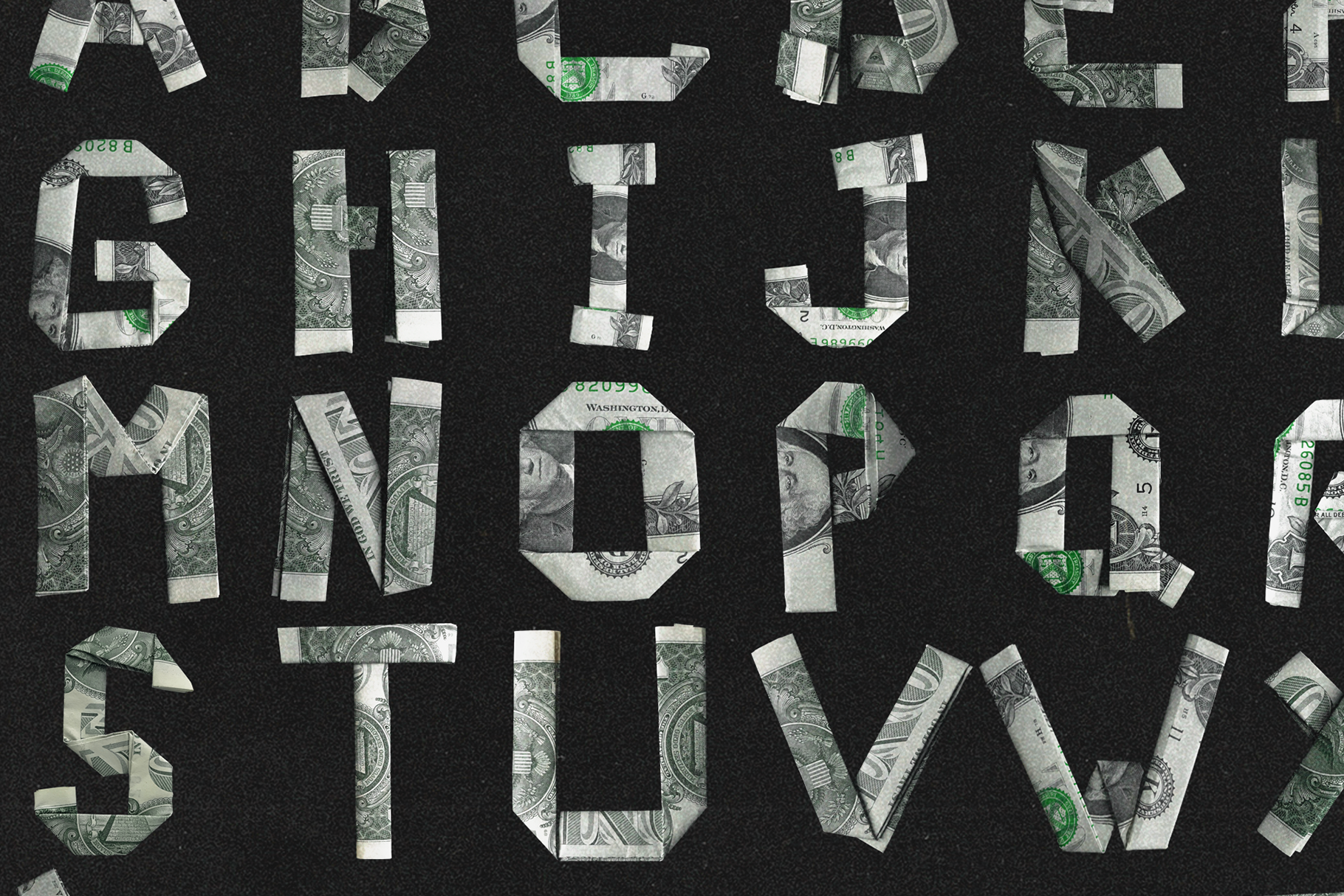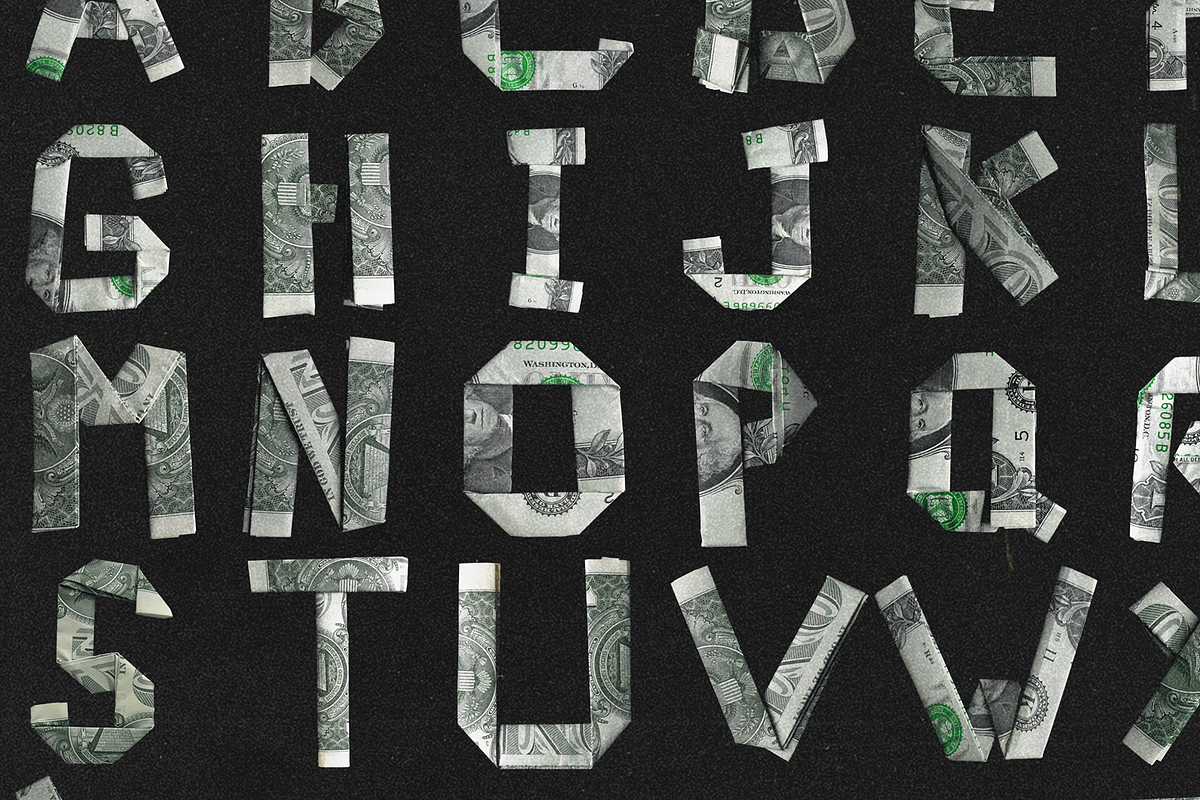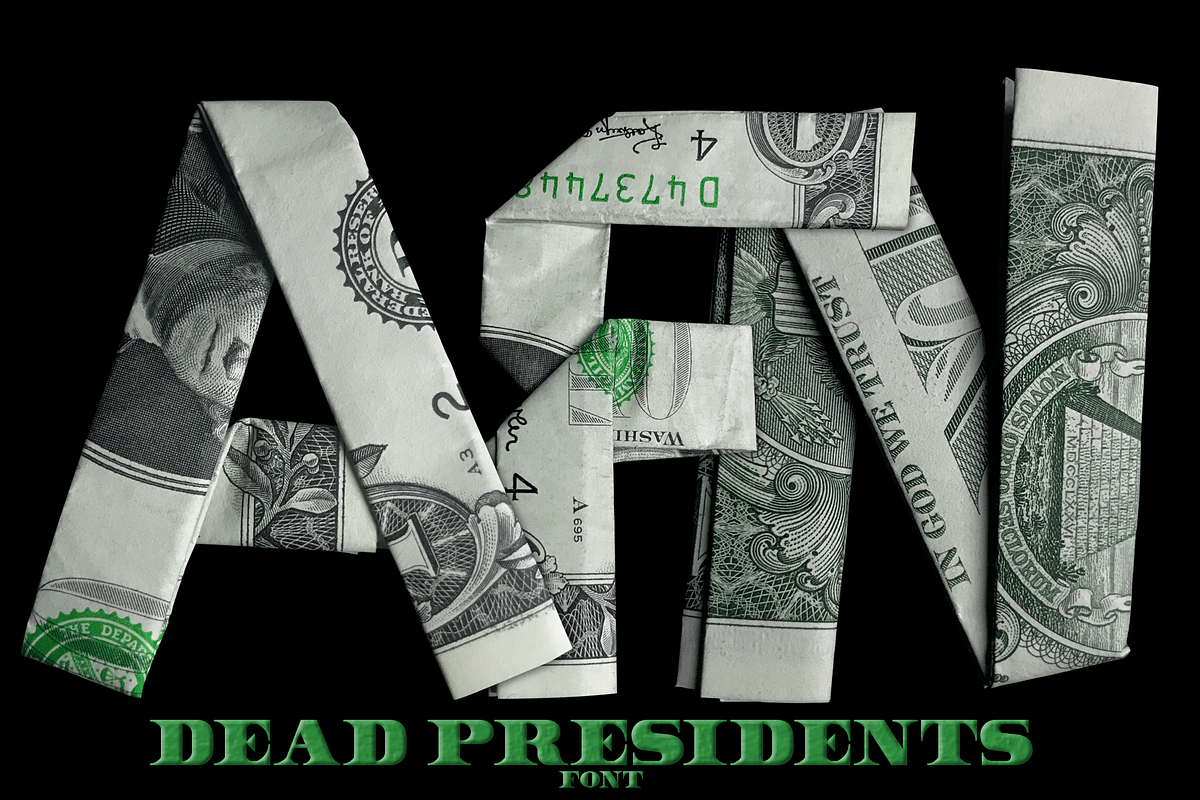
Dead Presidents Font
A handmade dollar font with each letter being individually folded from a dollar bill, photographed, and then edited in Photoshop. Each letter is a 2048x2048 transparent .PNG at 300DPI. Consists of the whole alphabet.